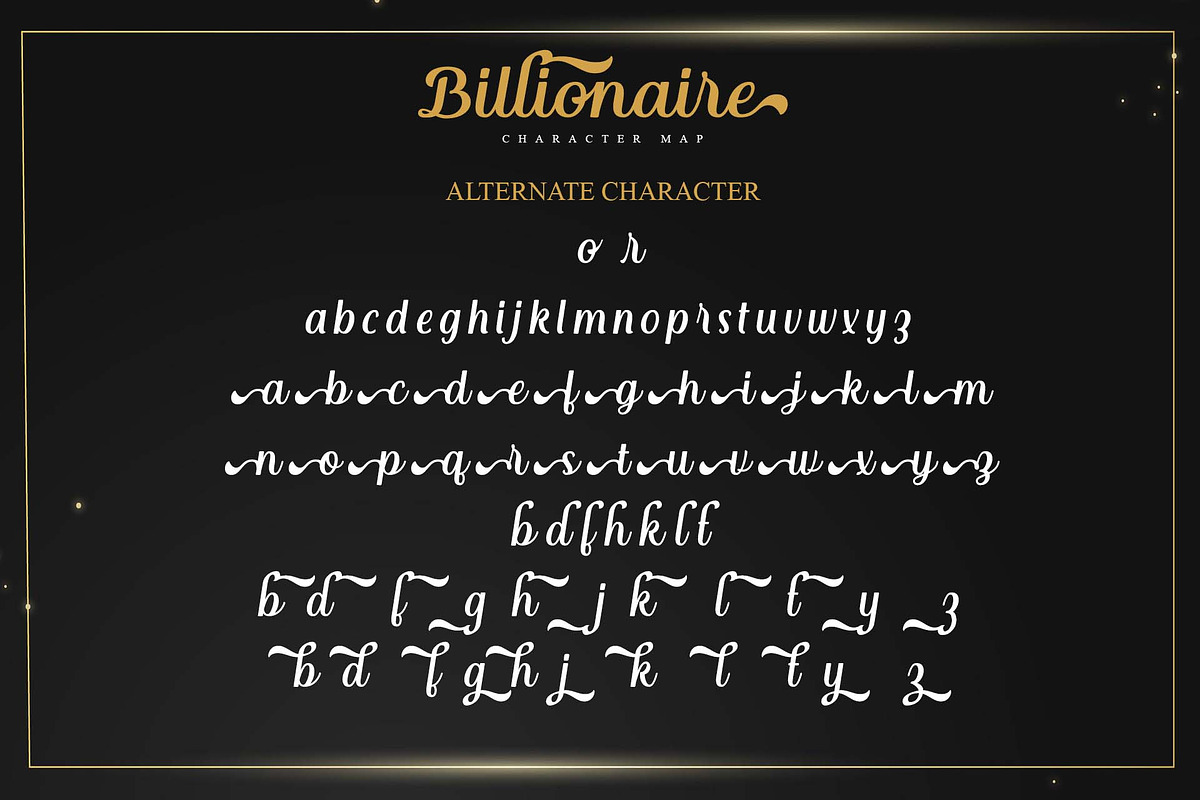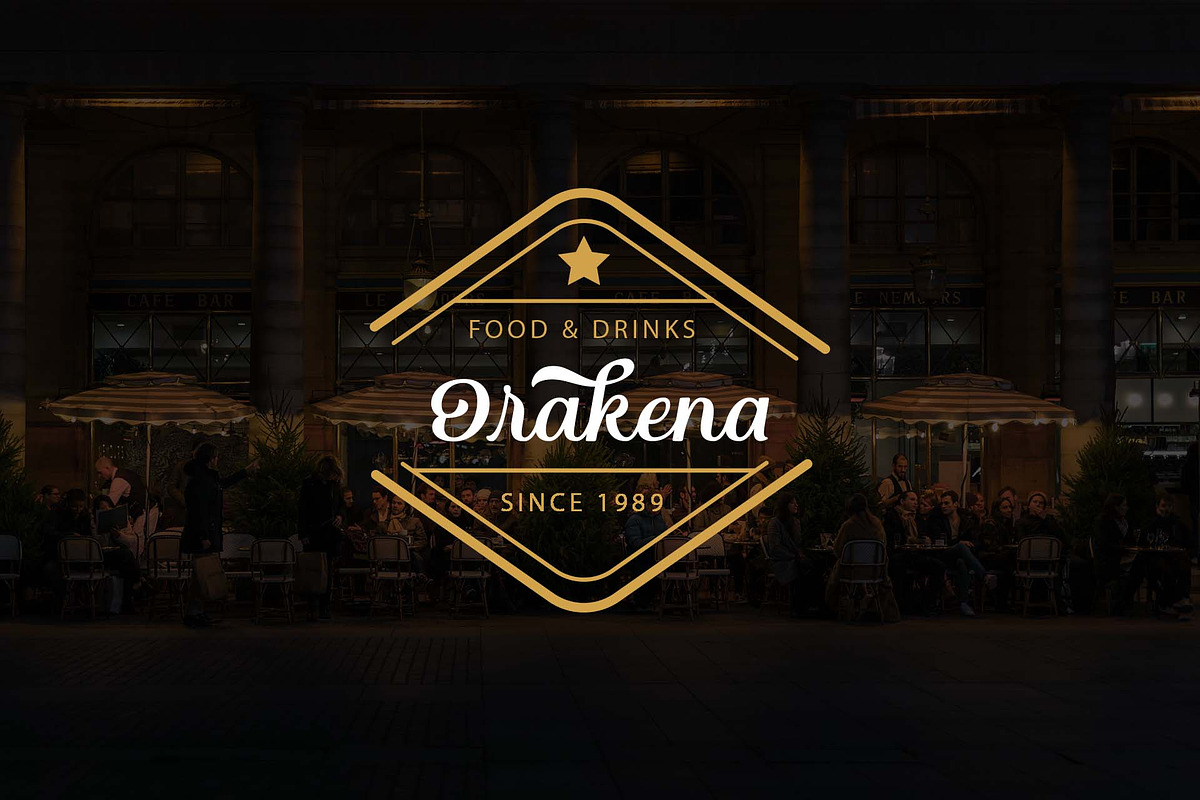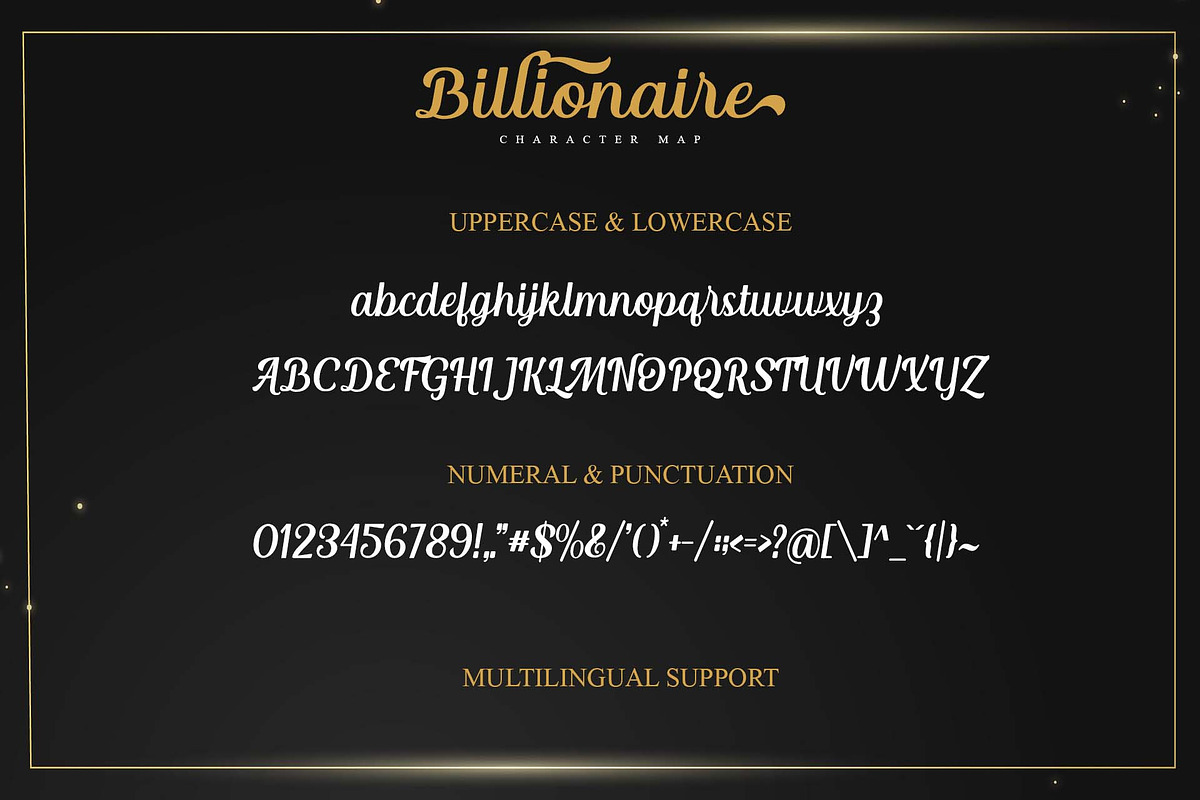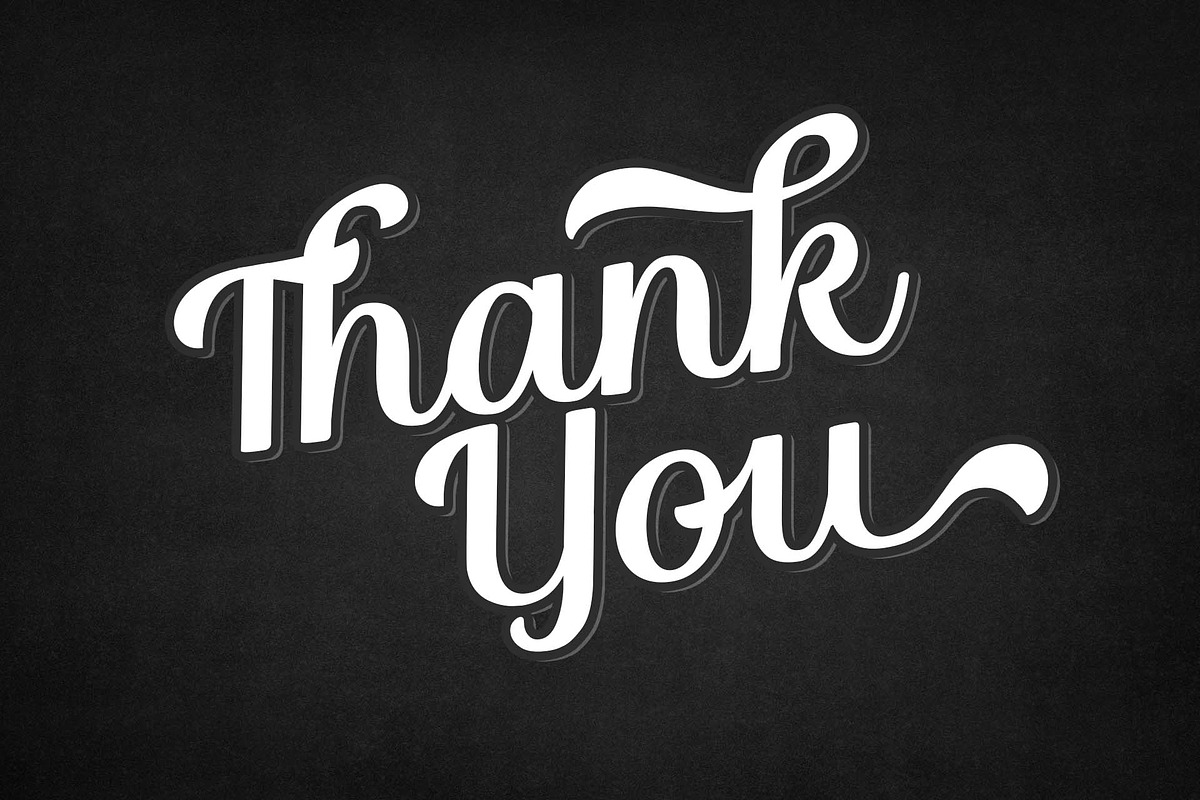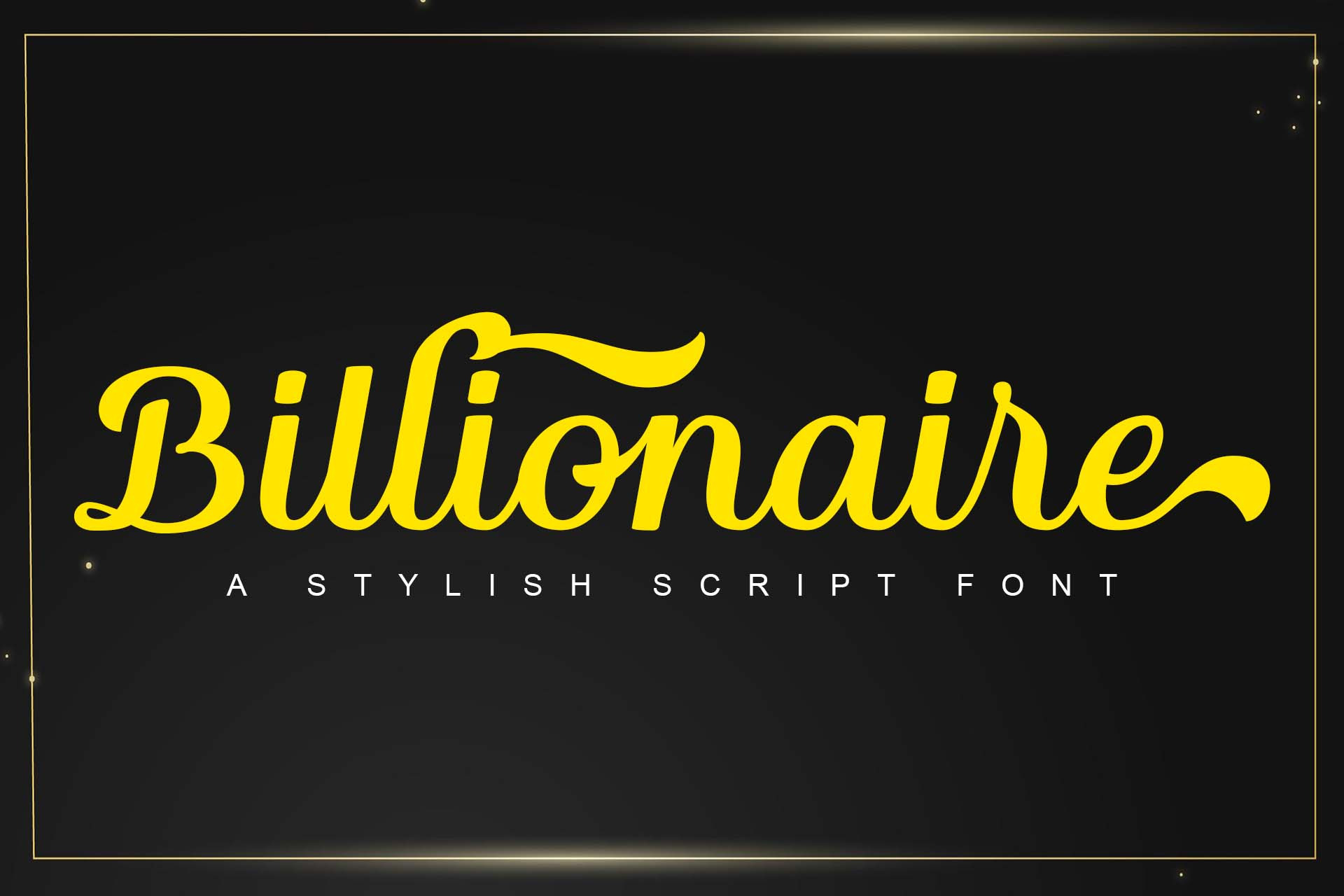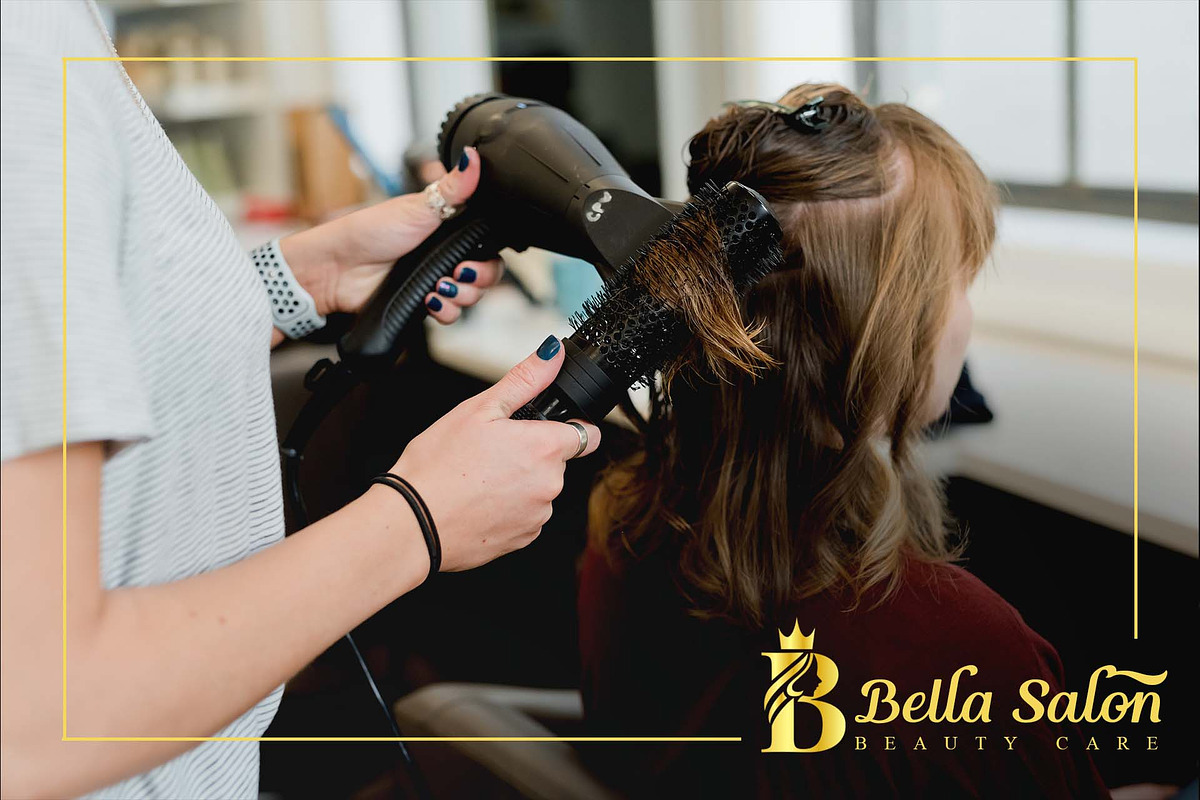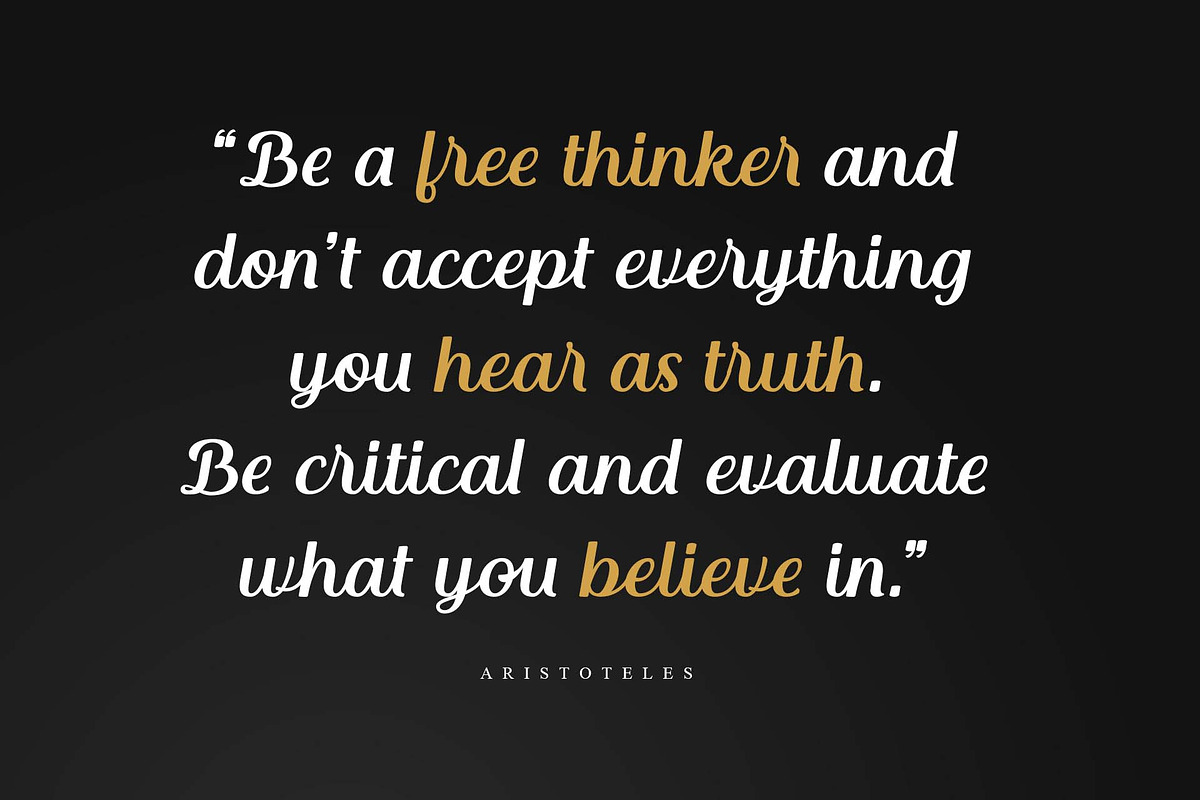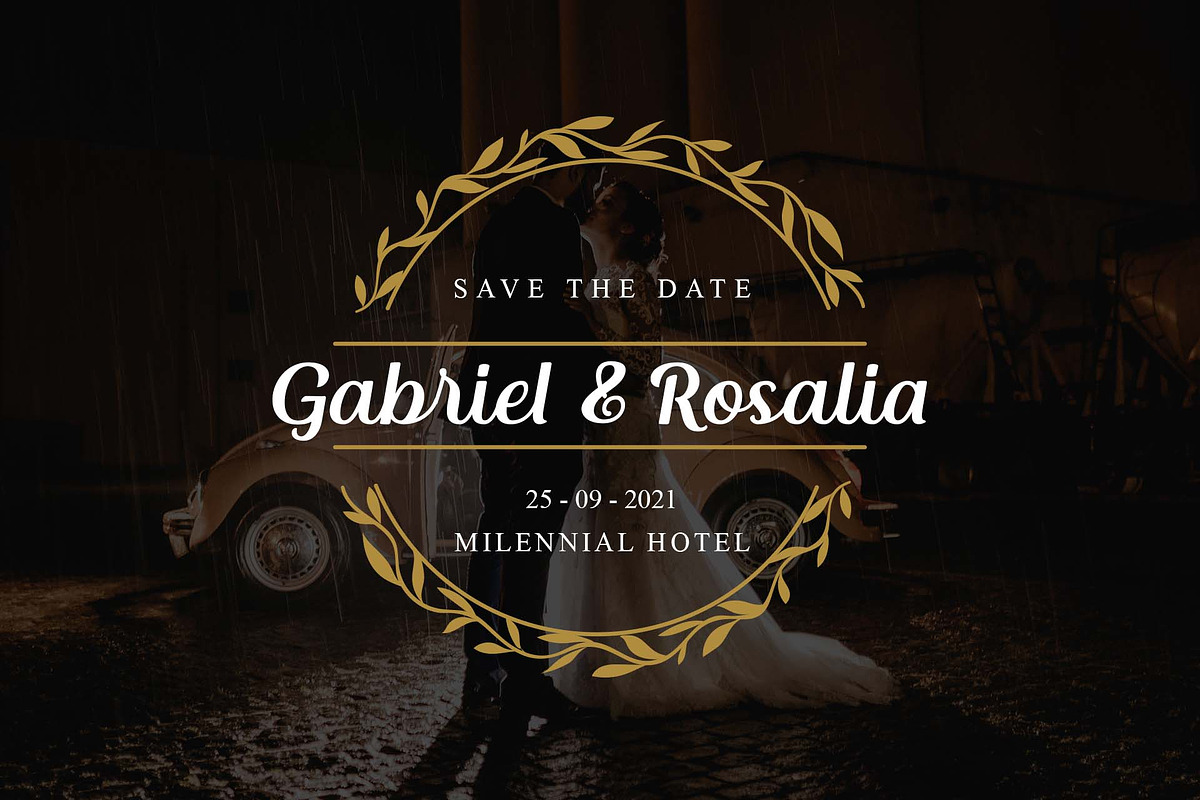
Billionaire - A Stylish Script Font
Introducing Billionaire, Billionaire is a stunning handwritten font that feels equally charming and elegant. It looks great on wedding invitations, thank you cards, quotes, greeting cards, logos, business cards, and so much more! This font is PUA encoded which means you can access all of the glyphs and swashes with ease!